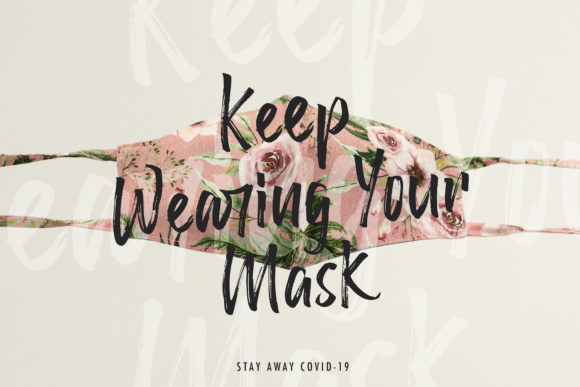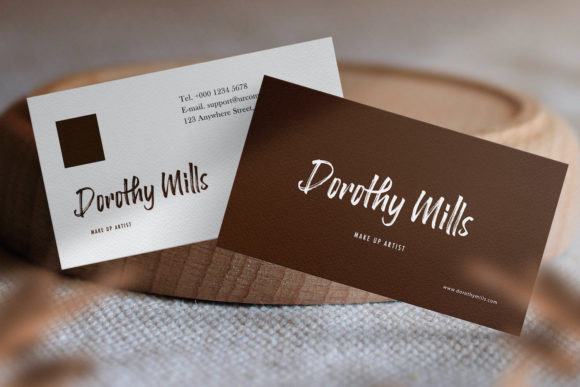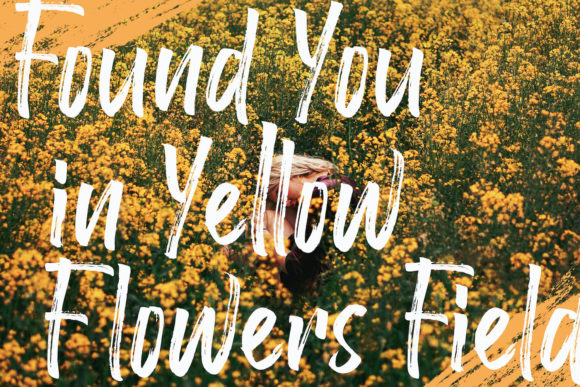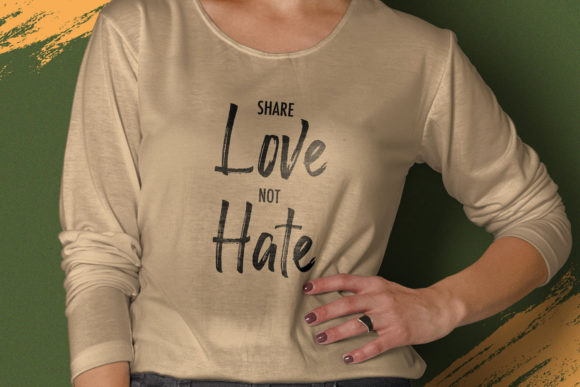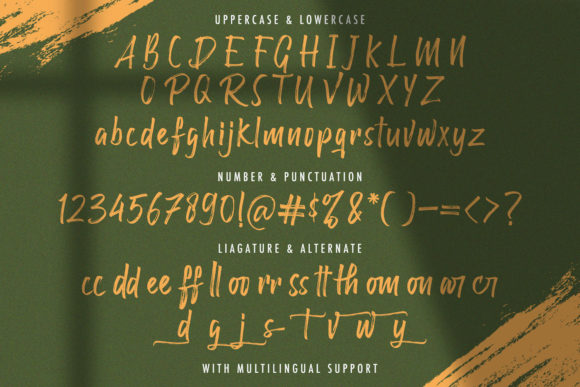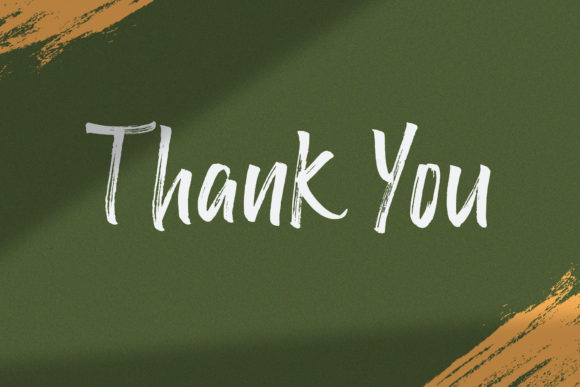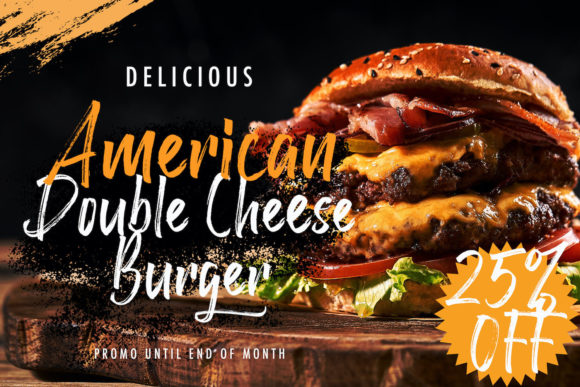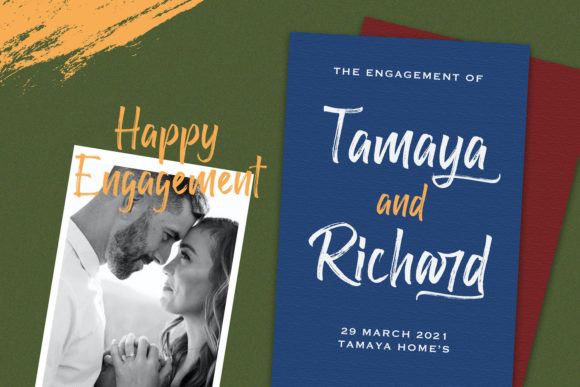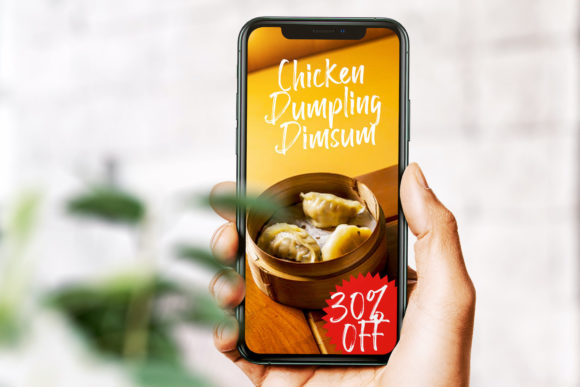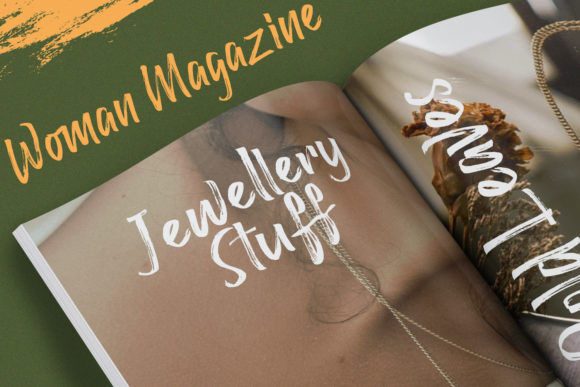
Raffles Bryant Font
About Raffles Bryant Font
“Raffles Bryant” is a cool and versatile brushed handwritten font that adds a touch of style and uniqueness to any design. With its adaptable nature, this font is suitable for a wide range of purposes, making it a valuable asset for your creative projects.
The brush-like strokes of “Raffles Bryant” give it a natural and organic feel, creating a handwritten appearance that adds character and authenticity to your designs. Its neat and well-crafted letterforms ensure legibility while maintaining a sense of creativity and personality.
This font is highly adaptable and can be used in various design contexts. Whether you’re creating a logo, designing wedding invitations, crafting headings, printing t-shirts, creating letterheads, designing signage, labeling products, or designing news articles, “Raffles Bryant” can effortlessly blend into your designs, enhancing their visual appeal.
The versatility of “Raffles Bryant” extends to different mediums and formats. It works well in both digital and print environments, allowing you to use it for online graphics, social media posts, websites, as well as printed materials such as posters, flyers, and badges.
With its cool and modern vibe, “Raffles Bryant” brings a contemporary touch to your designs. Its adaptability and neat appearance make it suitable for both casual and professional projects, allowing you to convey your message effectively while adding a touch of creativity.
In summary, “Raffles Bryant” is a cool and adaptable brushed handwritten font that adds a unique flair to various design projects. Its versatility and neat appearance make it a valuable tool for creating logos, invitations, headings, t-shirts, letterheads, signage, labels, news articles, posters, badges, and more.